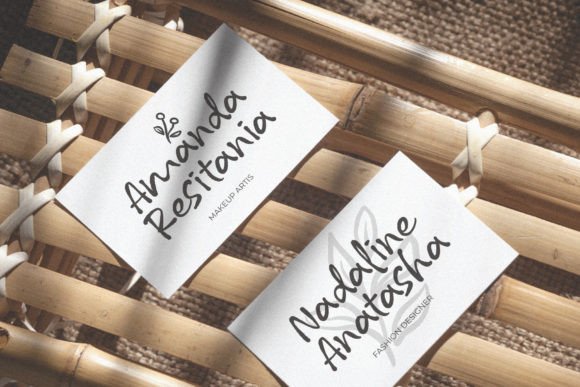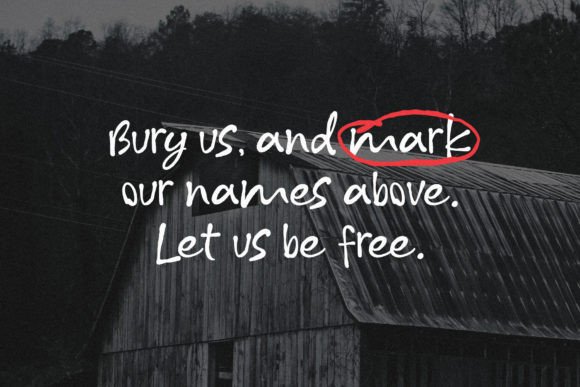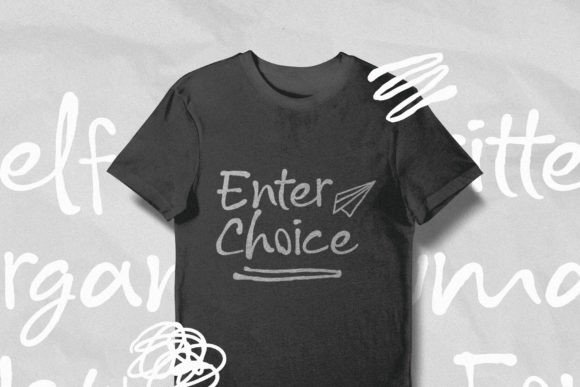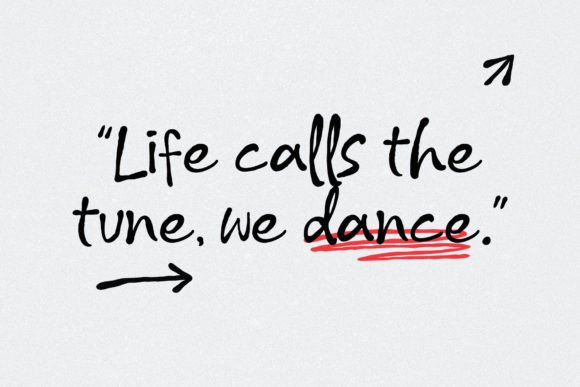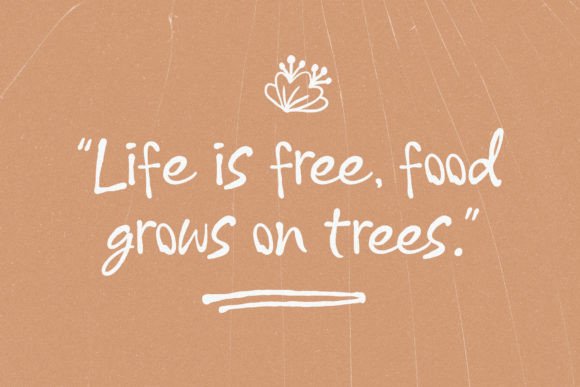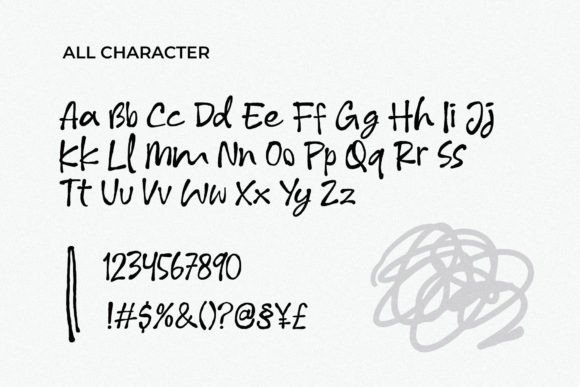
Introduction to Self Written Font
Have you ever found yourself scribbling notes in a journal, only to be captivated by the unique character of your handwriting? That’s exactly the feeling you’ll get when working with the Self Written Font – a design resource that captures the essence of organic handwriting.
As a designer, you’re constantly on the lookout for high-quality fonts that can elevate your creative project to the next level. The Self Written Font is a valuable addition to any design arsenal, offering a free download that’s perfect for adding a personal touch to your work. With its transparent background, you can easily overlay it on any image or design element, creating a seamless and professional look.
Whether you’re working on a branding project, a blog post, or even a wedding invitation, the Self Written Font is sure to spark your imagination and leave a lasting impression on your audience.
Key Features of Self Written Font
- Unique, handcrafted font with a distinctive aesthetic, perfect for adding a personal touch to your design work.
- Resolution-independent, scalable font that can be used at various sizes without compromising its quality, from 12pt to 100pt.
- Designed to be highly legible, making it an excellent choice for body text, headings, and titles in print and digital designs.
- Self Written Font is a valuable addition to any designer’s toolkit, suitable for a wide range of creative projects, from logos to publications.
Honest Review: Self Written Font
I recently had the chance to work with the Self Written Font, and I must say it’s been an interesting experience. As a designer, I’m always on the lookout for high-quality design resources that can elevate my creative projects. The Self Written Font seems to fit the bill.
Here are some things that work well with this font:
- ✨ High-quality design: The font is well-crafted and looks great on both screens and prints.
- ⚠️ Limited character set: The font only includes a limited character set, which may not be suitable for complex texts or projects that require multiple languages.
- ⚠️ Not ideal for small text: The font may not be the best choice for small text or body copy, as it can become difficult to read.
Overall, I think the Self Written Font is a great option for designers who need a high-quality, free font for their creative projects. While it has its limitations, it’s definitely worth considering for your next design project.
Self Written Font is perfect for:
- Blogging and social media graphics
- Wedding invitations and party decorations